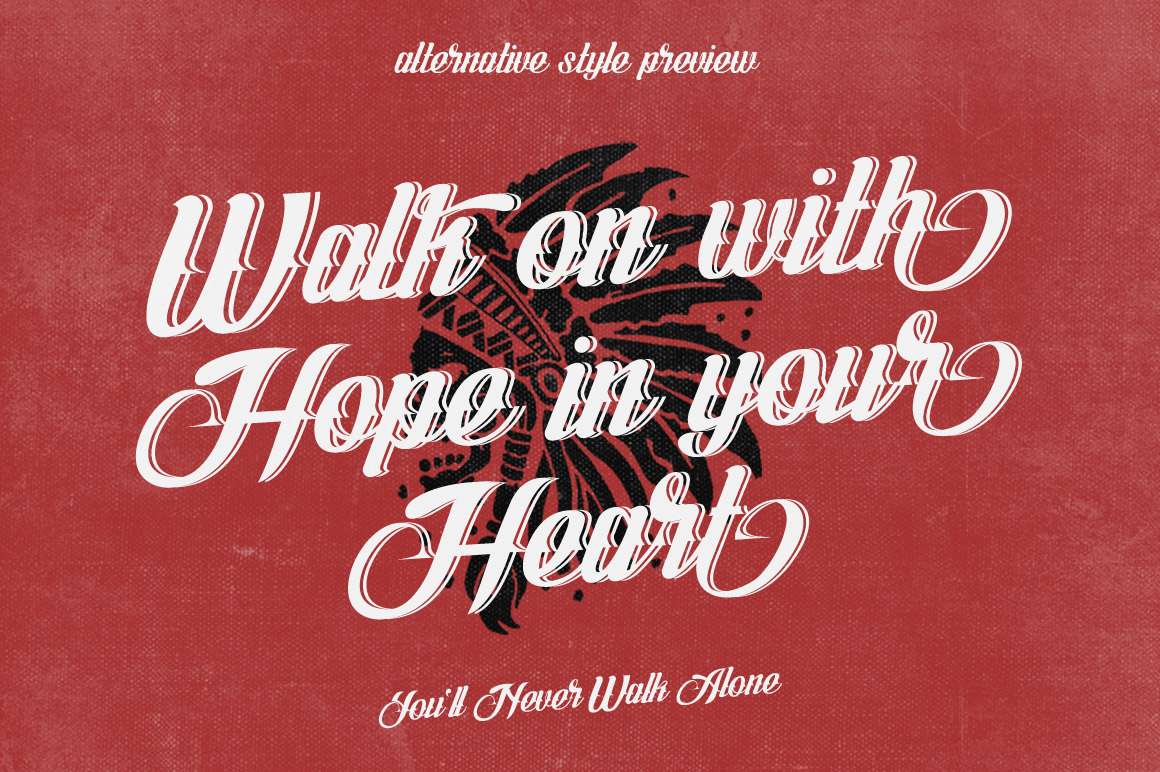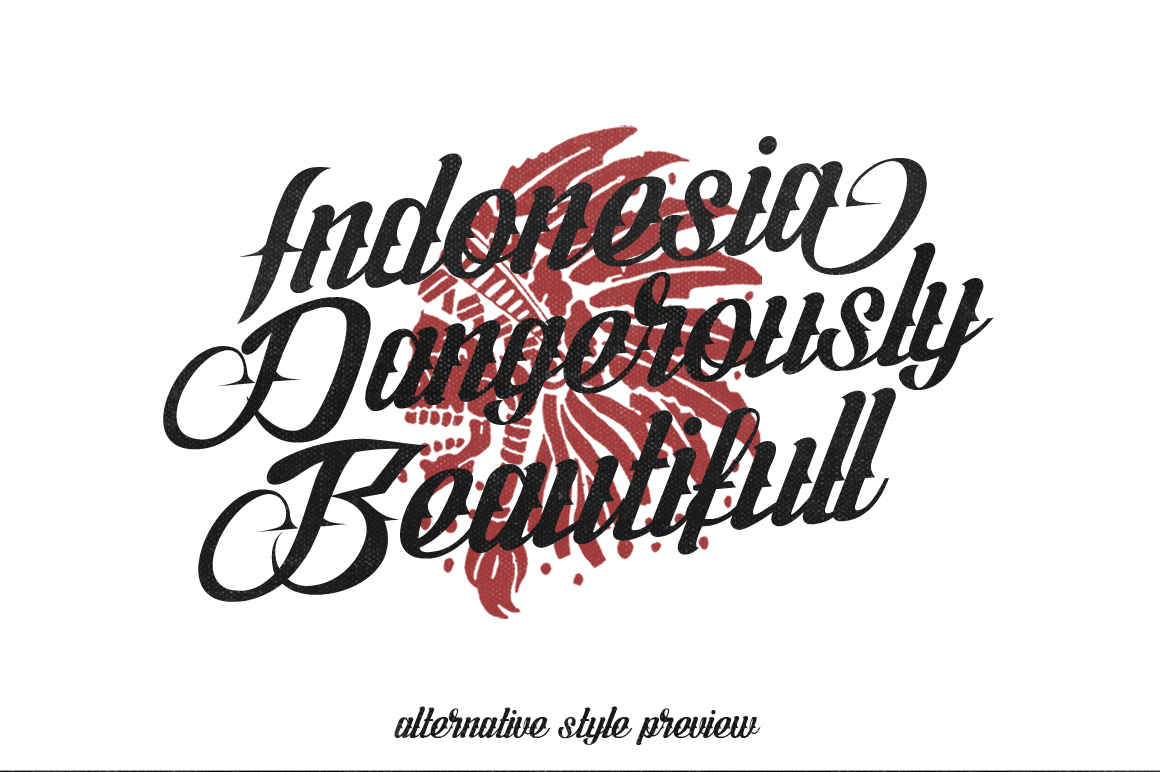
Logawa Script
A handpainted typeface in four different styles inspired by the tattoo artist lettering. Add some strong visual to your project, it’s perfect for headlines, logotypes, t-shirt and apparel designs! The font comes in OTF and TTF formats. We thank WNPRH Collective for providing us with this wonderful freebie.